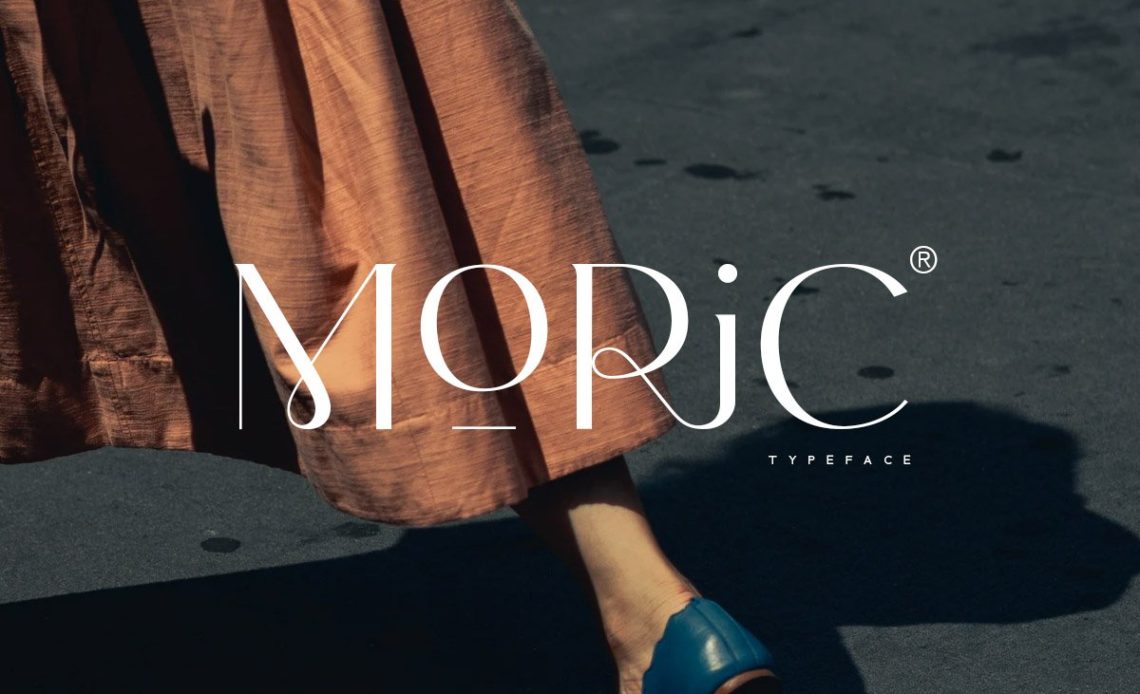
Introducing the Moric Typeface - the best font for your blog! Created by Agung Syaifudin, this modern fashion sans serif font is the perfect addition to your collection. With every single letter carefully crafted, your text will look unique and eye-catching.
But what sets Moric apart from other fonts? It's the beautiful alternate glyphs that come with it. These unique characters add a special touch to your text, making it stand out from the crowd. And don't worry, accessing these glyphs is easy. Just use Font Book (for Mac users) or Windows Character Map (for Windows users), and you'll be able to use them in no time.
Foreign language support is also included, so you can use Moric for your international content. With support for languages such as French, German, and Spanish, your text will look great no matter where your audience is located.